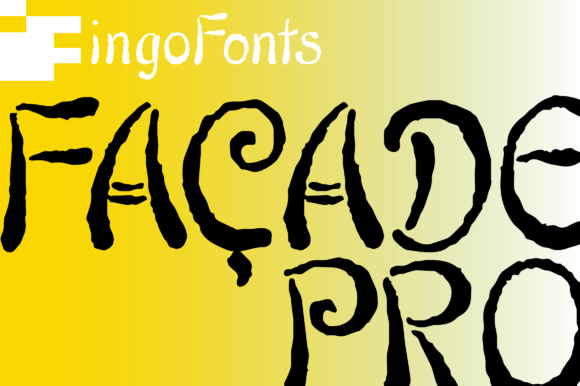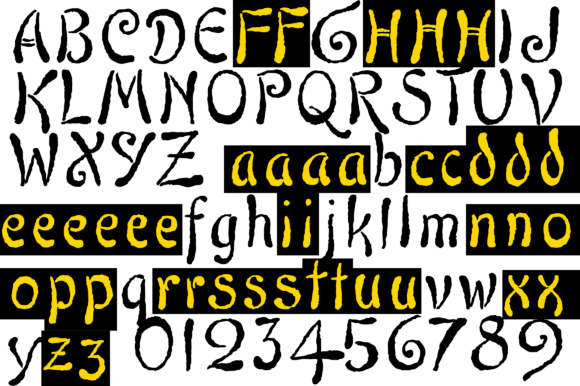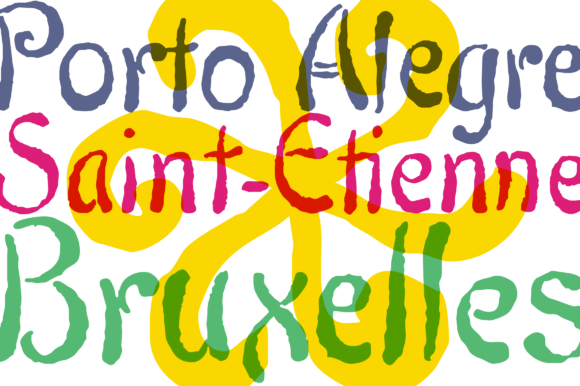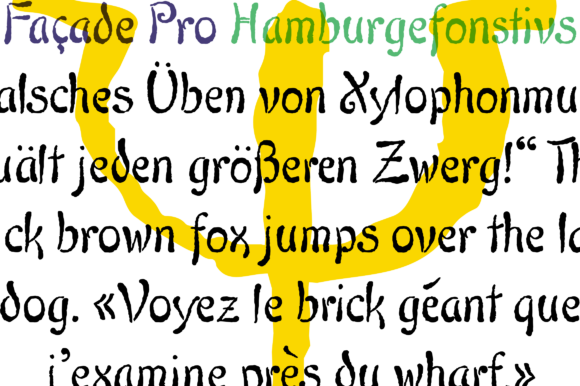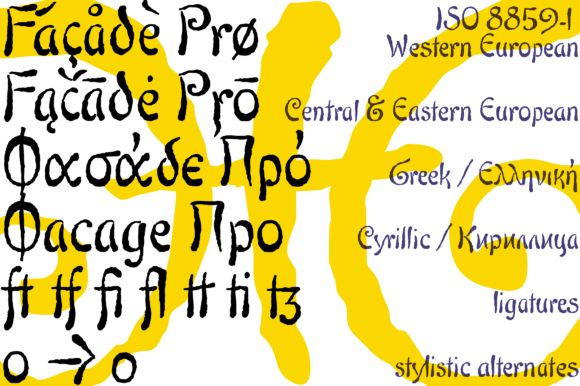
Façade Pro Font
About Façade Pro Font
Façade Pro is a bold and playful handwritten font with a contemporary charm. Get inspired by its unique characters!